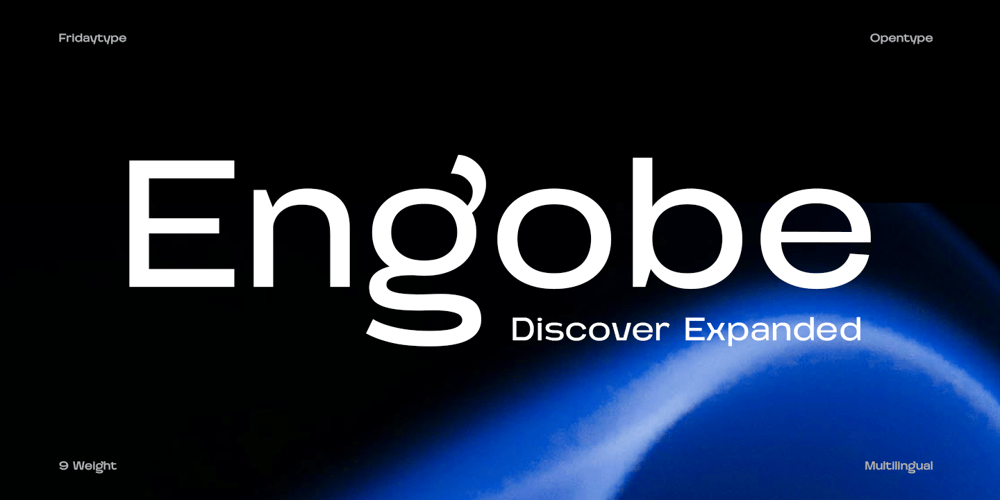
Engobe Expanded
Engobe Expanded font
Engobe Expanded Font Family was designed by Farida Kurniawan and published by Fridaytype. Engobe Expanded contains 9 styles and family package options. Engobe is a versatile variable font that brings a unique and modern twist to your design projects. Easily adjust the weight and width to fit any design need, from bold headlines to delicate body text. Perfect for logos, branding, posters, web design, and more, Engobe stands out with its distinctive style.Feature: 9 Styles, 9 Weights International characters (Multilingual) OpenType Features Variable Formats Free Update If you have any questions regarding my products, please do not hesitate to write a message Thanks and have a wonderful dayFridaytype